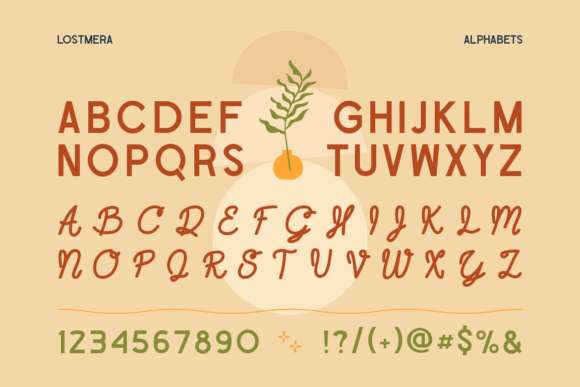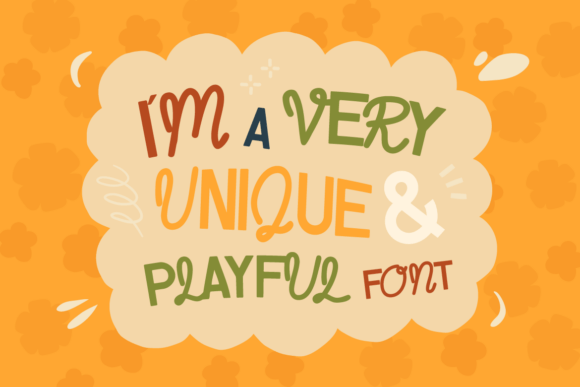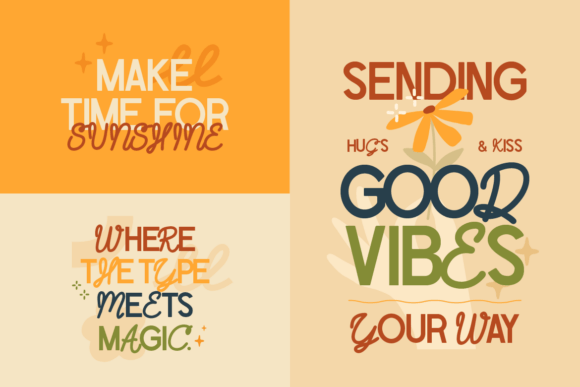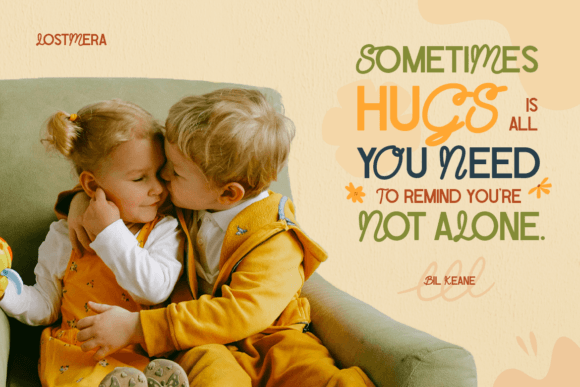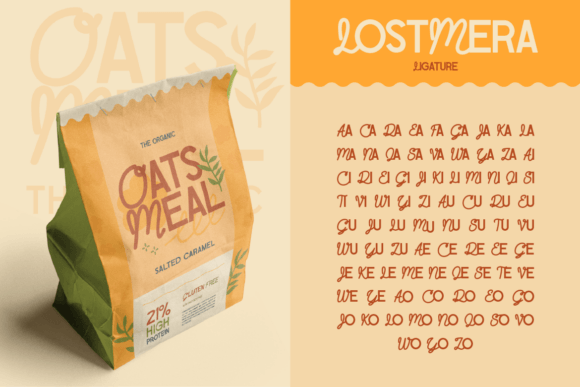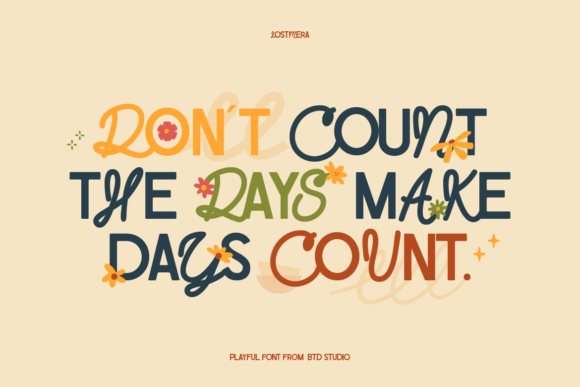
Introduction to Lostmera Font
Have you ever found yourself stuck in a creative rut, unable to convey the whimsy and playfulness of your design? I know I have. It’s those moments when you’re searching for the perfect font to elevate your project from good to great. That’s when I stumbled upon Lostmera Font, a game-changing hybrid of sans serif and script that has become my go-to design resource.
With its unique blend of clean lines and playful curves, Lostmera Font instantly brings a sense of joy and fun to any creative project. Whether you’re designing a logo, a branding campaign, or a social media graphic, this high-quality font is sure to make your design stand out. And the best part? It’s available for free download, complete with a transparent background, making it the perfect addition to your design arsenal.
So, what makes Lostmera Font so valuable for designers? For one, its ligatures add a touch of magic to any text, making it perfect for creative projects that require a modern yet elegant feel. In this article, we’ll dive deeper into the world of Lostmera Font and explore why it’s become a staple in the design community.
Key Features of Lostmera Font
- High-quality, free download font ideal for creative projects and design resources.
- Unique, hand-drawn design with a transparent background, allowing for versatility in usage.
- Includes a range of characters, including uppercase and lowercase letters, numbers, and special symbols.
- Perfect for designers and artists looking for a distinctive, creative font for their next project.
Honest Review: Lostmera Font
As a designer, I’m always on the lookout for high-quality design resources that can elevate my creative projects. Recently, I came across the Lostmera Font, and I’m excited to share my honest review with you.
- ✨ Unique and elegant design style that adds a touch of sophistication to any project.
- ✨ High-quality typography that’s perfect for headings and titles.
- ✨ Transparent background makes it easy to use on any design surface.
- ⚠️ Limited character set, which may not be ideal for longer texts or paragraphs.
- ⚠️ Not suitable for body text, as it may be too decorative and distracting.
Overall, I’m impressed with the Lostmera Font, and I think it’s a great addition to any designer’s toolkit. While it may not be perfect for every project, its unique design style and high-quality typography make it a valuable resource for creative projects. If you’re looking for a stylish font to add some flair to your designs, the Lostmera Font is definitely worth checking out.
The Lostmera Font is perfect for a variety of creative projects, including:
- Brochure design
- Infographic design